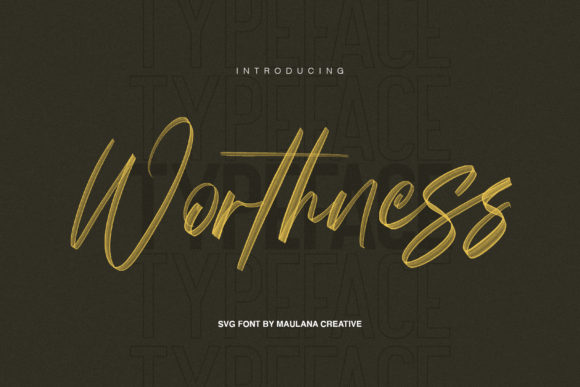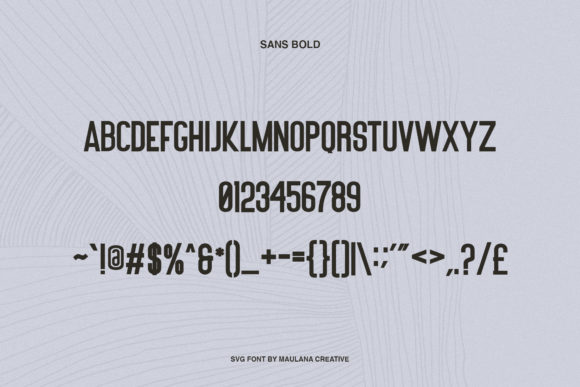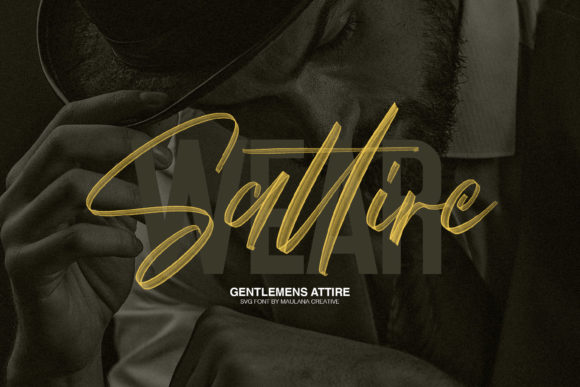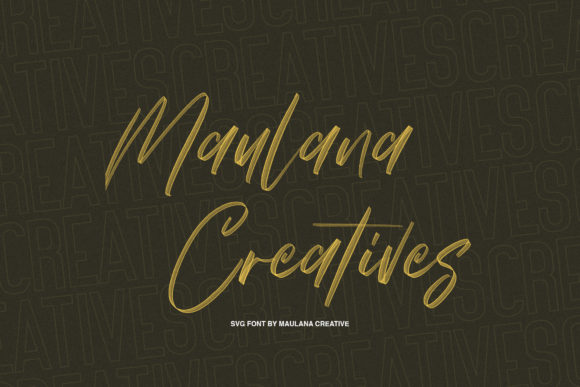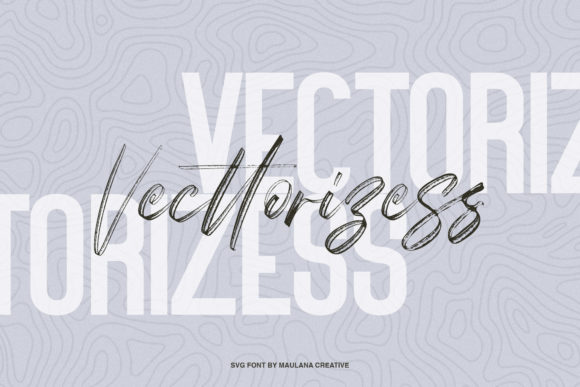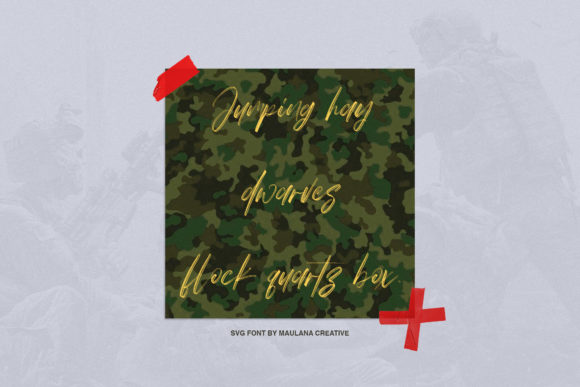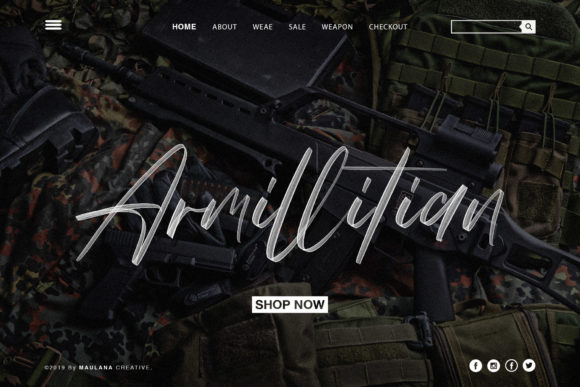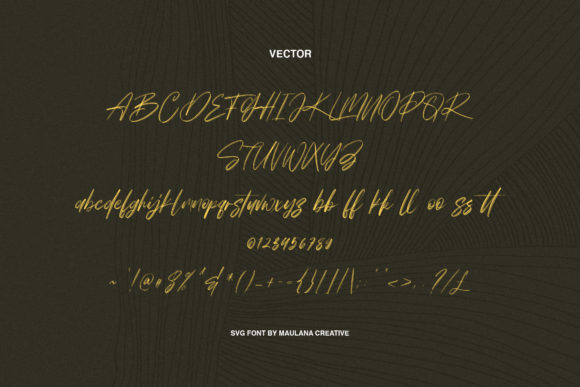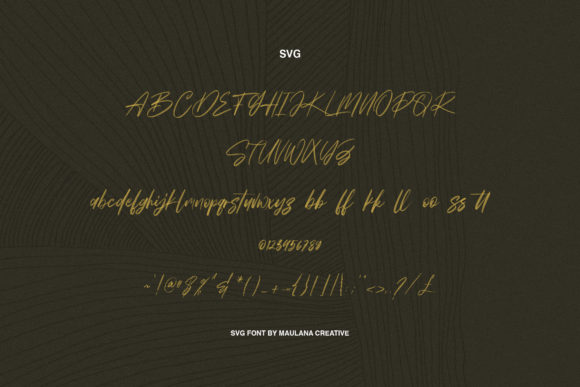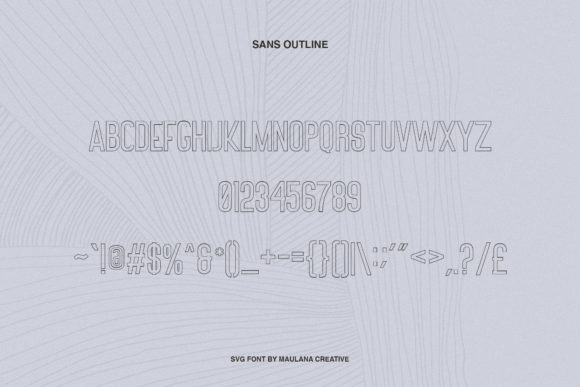
HomeScript FontsWorthness Font Script Fonts Worthness Font FacebookXPinterestWhatsApp Worthness Font Poster 2 Worthness Font Poster 3 Worthness Font Poster 4 Worthness Font Poster 5 Worthness Font Poster 6 Worthness Font Poster 7 Worthness Font Poster 8 Worthness Font Poster 9 Worthness Font Poster 10 About Worthness Font Worthness is the ideal font for giving your designs a handcrafted feel. Fall in love with its modern elegance. DOWNLOAD ON CREATIVE FABRICAThis font is sold and delivered by Creative Fabrica. Font Canyon may earn a commission if you buy through this link. People also explored Emmanuela Font Line Font Hello Sister Font Zero Style Font Bella Bellia Font Valentine Font Hanabi Font Mybellin Beautya Font Misterday Font 327 0 TagsWorthness Font Previous articleDiora Duo FontNext articleLiontin Font LEAVE A REPLY Cancel reply Comment: Please enter your comment! Name:* Please enter your name here Email:* You have entered an incorrect email address! Please enter your email address here Website: Save my name, email, and website in this browser for the next time I comment. Personal Use Free Camping Personal Use Free Read more about this font Williana Personal Use Free Read more about this font Wanita Cantik Personal Use Free Read more about this font A New Nattyla Personal Use Free Read more about this font BLOG How to Cut Any Font on Cricut: Convert a Font to SVG (Free) Turn any font into a clean SVG so it cuts crisp on Cricut - a quick 3-step workflow using a free font-to-SVG tool. To increase your work productivity, choose the most readable fonts. Top 10 Handwritten Fonts That Elevate Your Designs Best Fonts for YouTube Videos: Make Your Thumbnails Stand Out